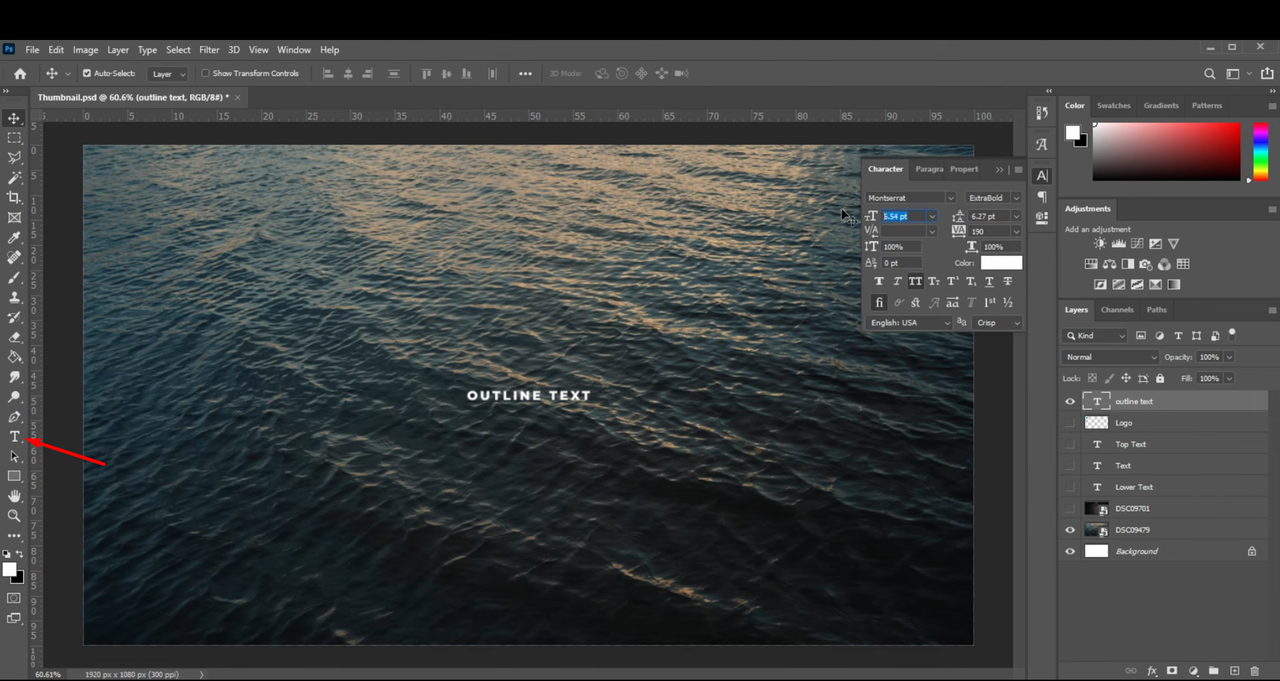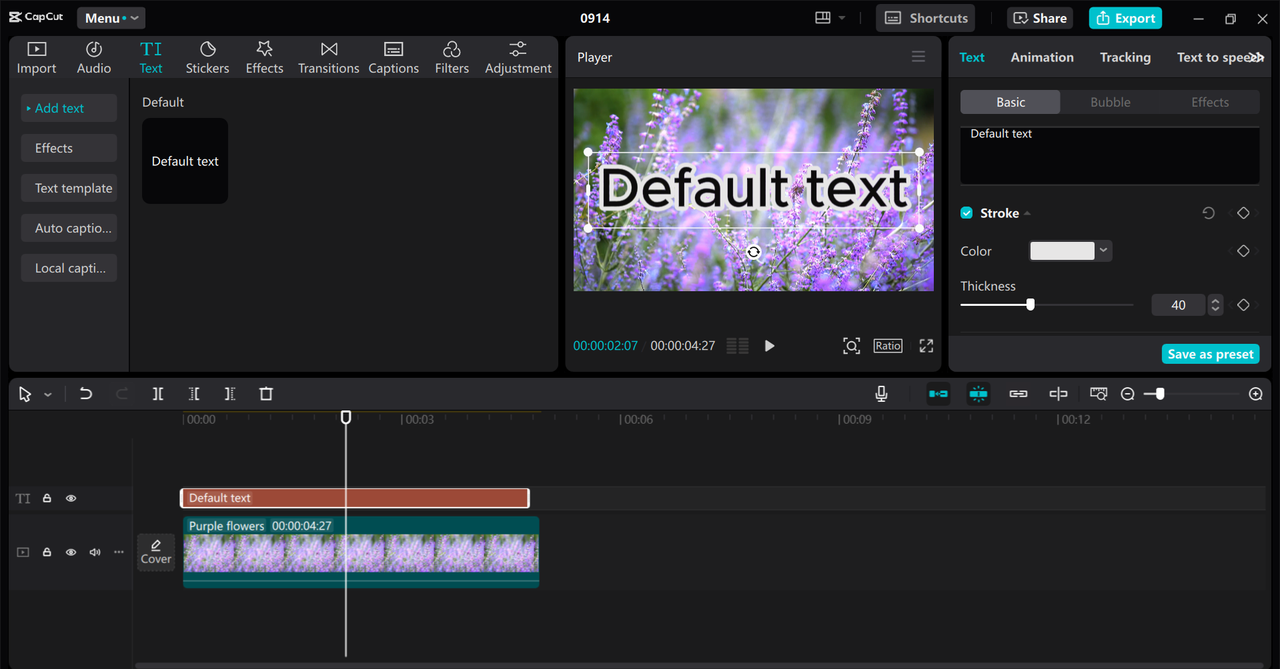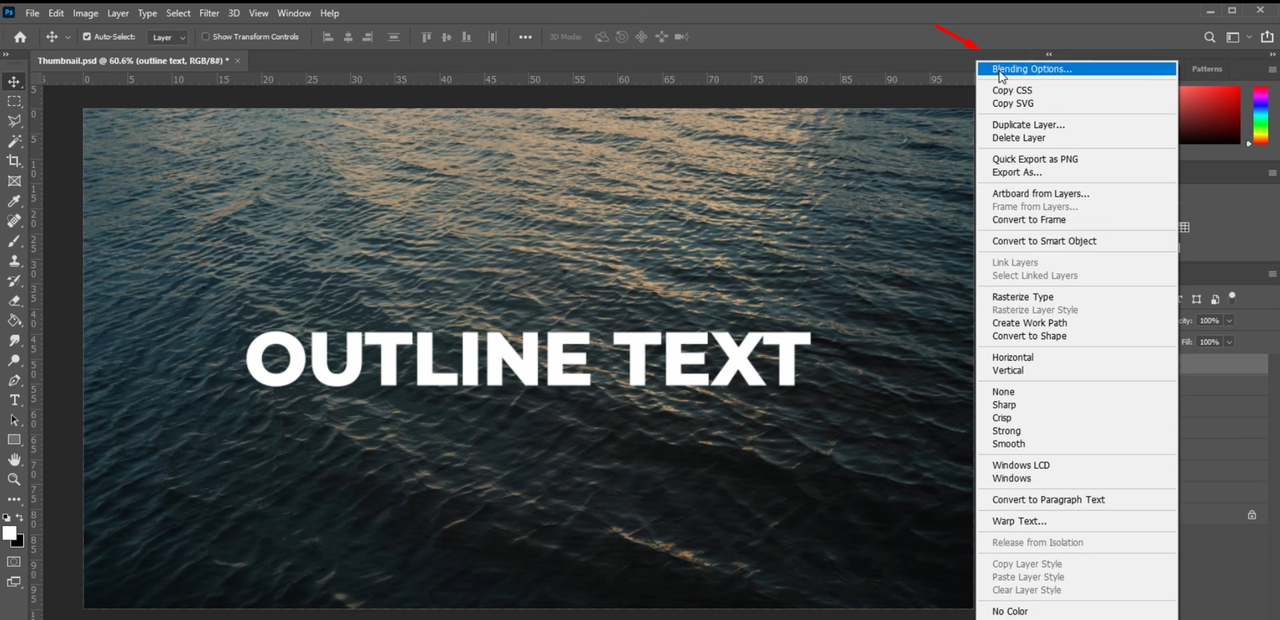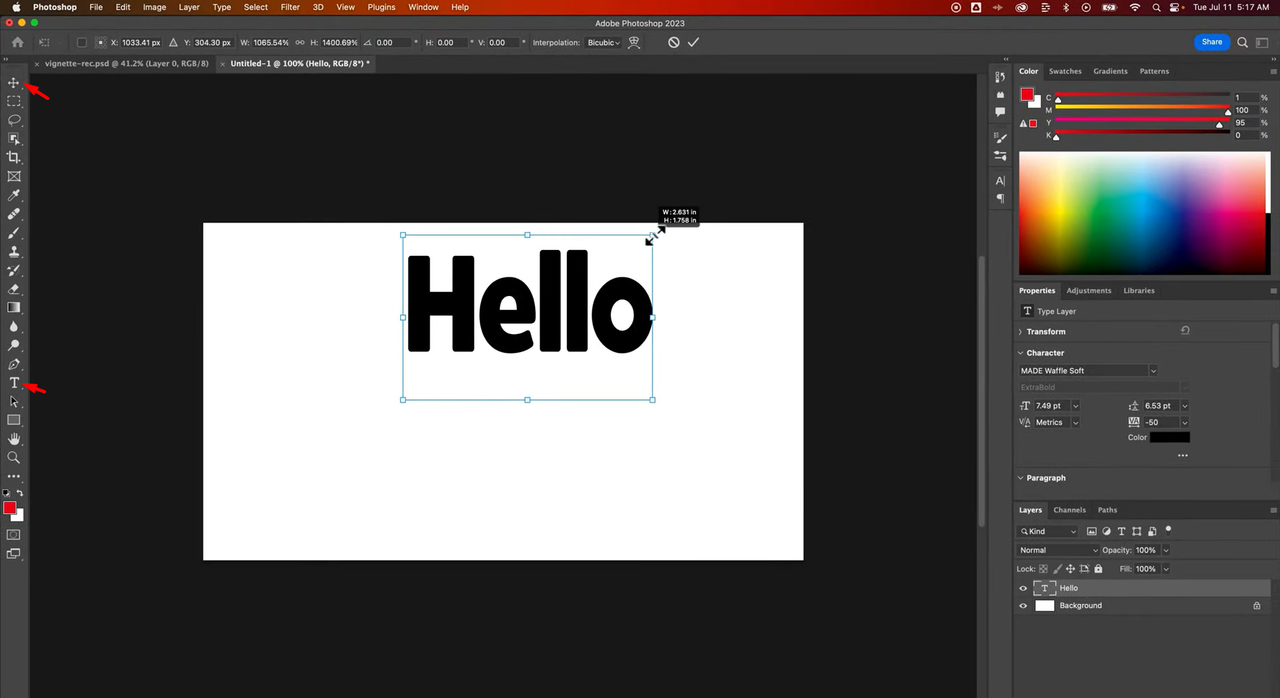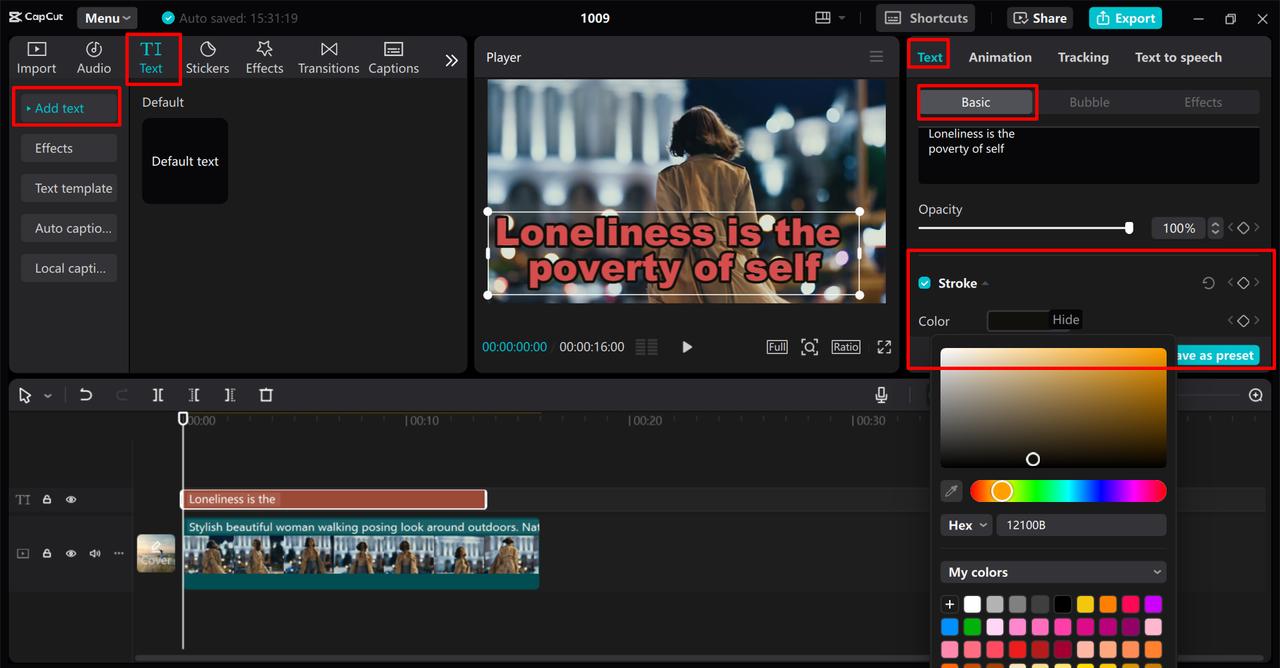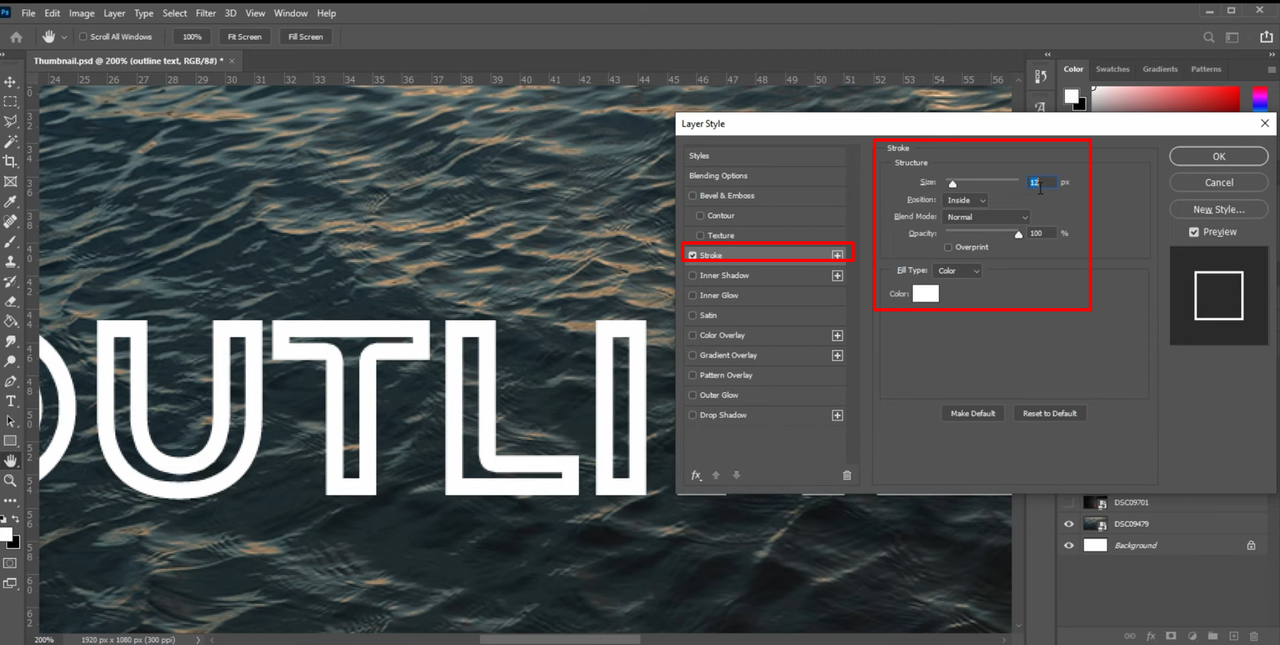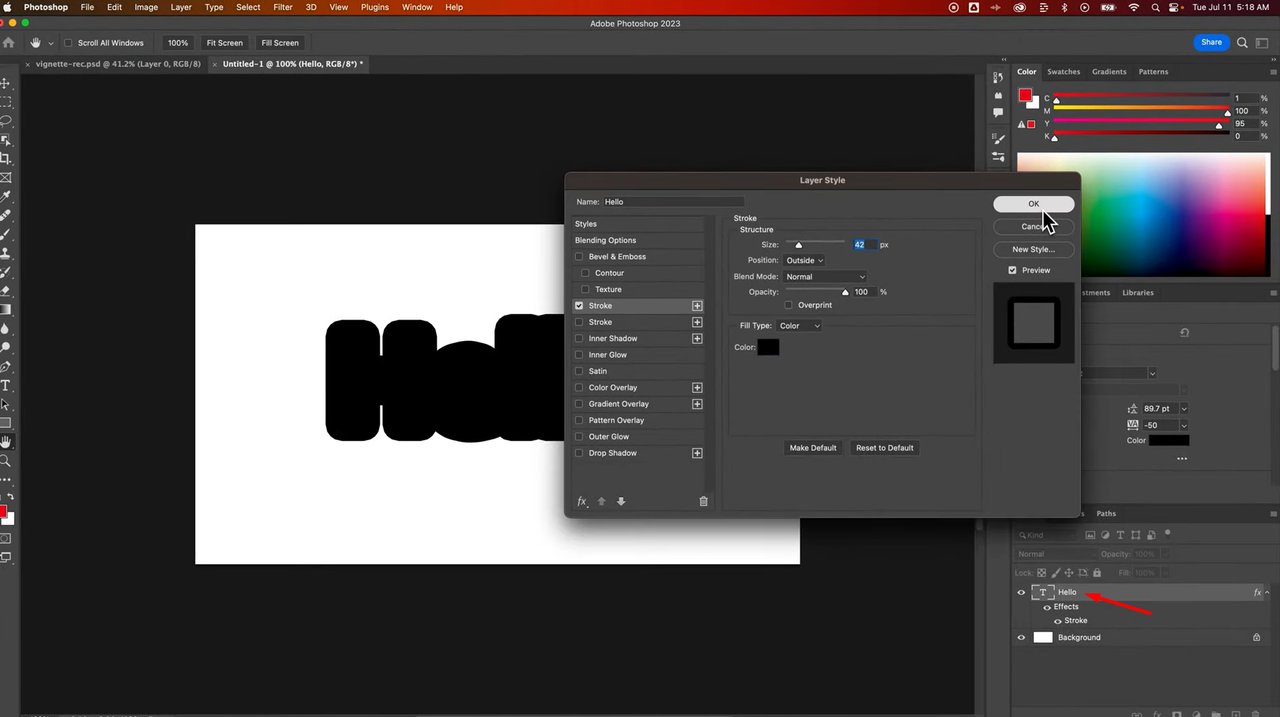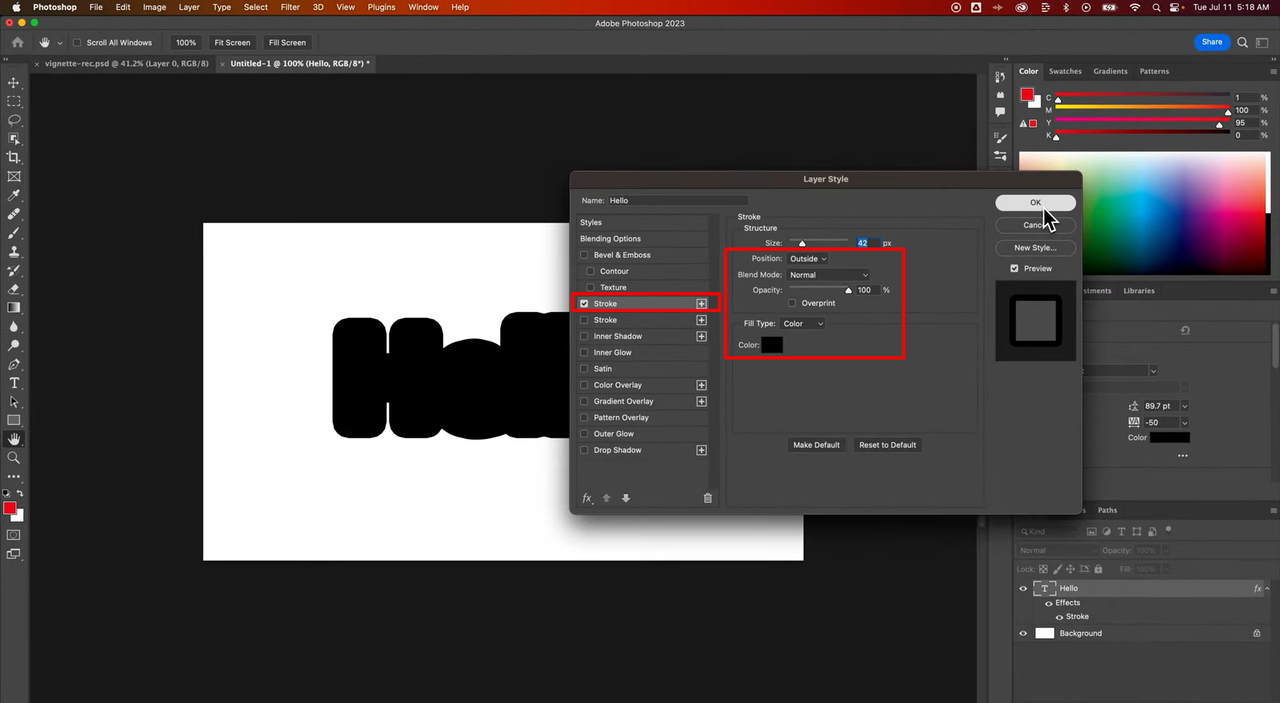
How to Employ Outline Font in Photoshop | Make Your Texts Pop
Learn how to create a<a> </a>outline font in Photoshop to add bold and eye-catching effects to your text. Follow simple steps to enhance your designs like a pro. Moreover, use CapCut to outline your texts and grab attention.
In Photoshop, outlining fonts is more than just applying a stroke to text; it is a crucial design technique for enhancing visibility, creating contrast, and highlighting key elements. Photoshop's advanced tools enable designers to create professional outlines that embellish the overall typography presentation.
This article will show you how to outline words in Photoshop that help you enhance the quality and impact of your designs.
Text outlining vs text borders
Before learning how to create a text outline in Photoshop, it's important to understand two key concepts: text outlining and text borders. While both enhance text visibility, they serve distinct purposes in the design process.
Text outlining involves adding a stroke or edge around the entire shape of the text, which makes the letters stand out against complex backgrounds.
On the other hand, text borders are frames or boxes placed around the text itself to provide a more structured appearance. Outlines integrate with the letterforms, while borders define the space around the text, both playing a role in readability and emphasis.
Image showing text outlining vs text borders
Why should you add an outline to text in Photoshop
Outlining text in Photoshop comes with several advantages. Here are some key benefits:
• Highlight key text
Outlining text ensures that important words grab attention instantly and makes it easier for audiences to spot the most crucial elements quickly.
• Improve readability
When you apply an outline, it enhances readability by ensuring your text does not blend into the background. Even thinner fonts gain clarity and become easier to read.
• Create unique styles
Adding outline to text in Photoshop lets you experiment with different thicknesses, colors, and patterns. This flexibility helps you build distinctive designs that reflect your creative vision.
• Add visual depth
By outlining text, you introduce layers that make your text appear three-dimensional. This subtle depth can add a professional touch to design to create a more visual interest.
• Enhance design focus
Outlining your text ensures that key information in the design stands out. This method draws the viewer’s eye to essential details and assists in maintaining the overall focus on your message.
How to outline a font in Photoshop
Now, let’s explore how to add an outline to text in Photoshop. This straightforward method effectively gives your text a bold, stylish edge. With the help of adding a custom outline around your letters, you can easily adjust the thickness, color, and placement to create striking designs.
Here's how to outline text in Photoshop:
1. Type your text
Start by typing out the text you want to outline using the "Text" tool. After typing, make sure to select the text layer in the layers panel so you can start applying effects directly to that layer.
Adding text for outlining in Photoshop
1. Access the blending option
Right-click the text layer in the layers panel and select "Blending Options." From there, choose "Stroke" and adjust the thickness, position, size, and color to create the outline you like.
Image showing how to outline a font in Photoshop
1. Customize the look
Play around with the stroke settings, such as opacity and fill options, until you achieve the style that matches your design vision.
Adjusting the outline in Photoshop
How to add strokes to text in Photoshop in simple steps
Adding a stroke to text in Photoshop creates defined outlines around your words. It's an excellent technique for emphasizing your text and enhancing readability across various layouts.
Here's how to add a stroke to text in Photoshop:
1. Create your text
Open Photoshop and select the text option on the left side. Type your desired text and customize its size and style as desired.
Adding text to apply strokes in Photoshop
1. Open the "Layer Style" panel
Double-click on the text layer in the layers panel to open the "Layer Style" options. This is where you'll find the stroke settings.
Opening the stroke setting in Photoshop
1. Apply and customize the stroke
1. How do I create a outline font in Photoshop?
To create a outline font in Photoshop, simply type your text and access the "Blending Options" from the Layer option. From there, select "Stroke," adjust the settings to your preference, and apply the effect. This straightforward method lets you control how the outline looks. For enhancing the video content with the text, choose the CapCut desktop editor because it provides robust tools to help you add outlines.